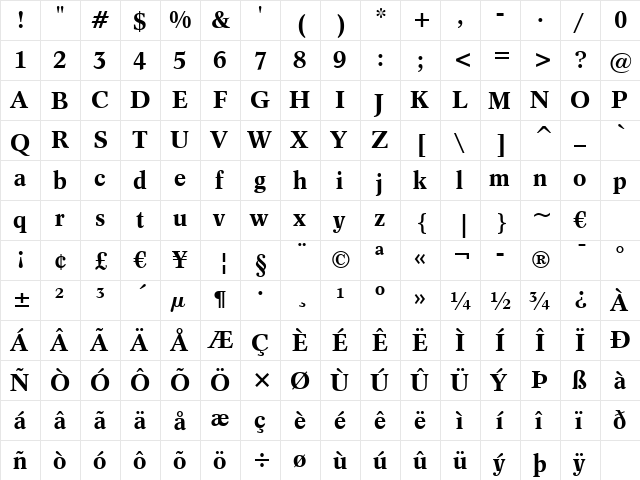
Dutch809 BT Bold
Design Context for Dutch809 BT Typeface
Dutch809 BT takes a measured approach to typography — its balanced proportions and neutral character make it a reliable workhorse for both digital and print work. The heavy weight commands attention and anchors typographic hierarchies.